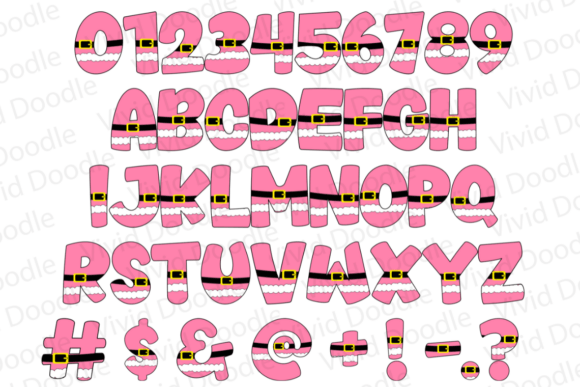
Pink Christmas Santa Doodle Font
Pink Christmas Santa Doodle Font is a fun and festive font that brings a playful twist to traditional holiday designs! This font is perfect for adding a dash of joy and color to your Christmas creations. Use it for holiday cards, gift tags, posters, party invites, school projects, and creative art that needs a unique, modern holiday vibe. Pink Christmas Santa Doodle Font is a perfect choice for spreading holiday cheer with a fresh, trendy twist!